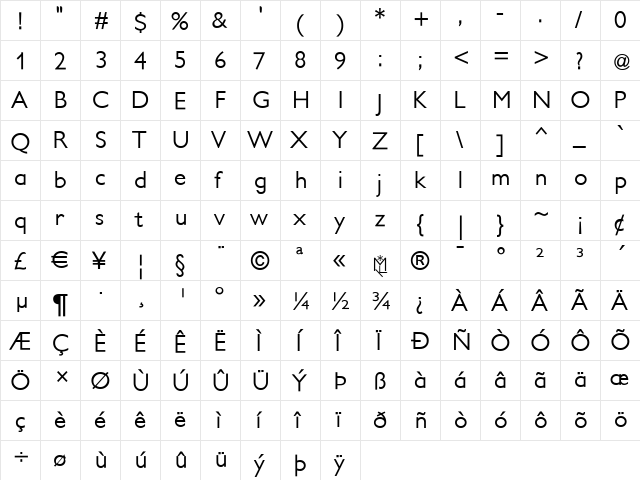
PetitaMedium Regular Font Preview
PetitaMedium Regular
PetitaMedium Regular Font Details
Design Context for PetitaMedium Typeface
PetitaMedium offers clean, dependable letterforms without strong stylistic allegiance, making it a practical choice for designers who need flexibility.
Pro Tip: Use PetitaMedium in both headline and body roles to test its range before committing to a single application.